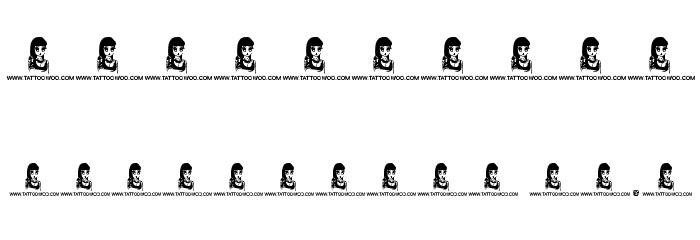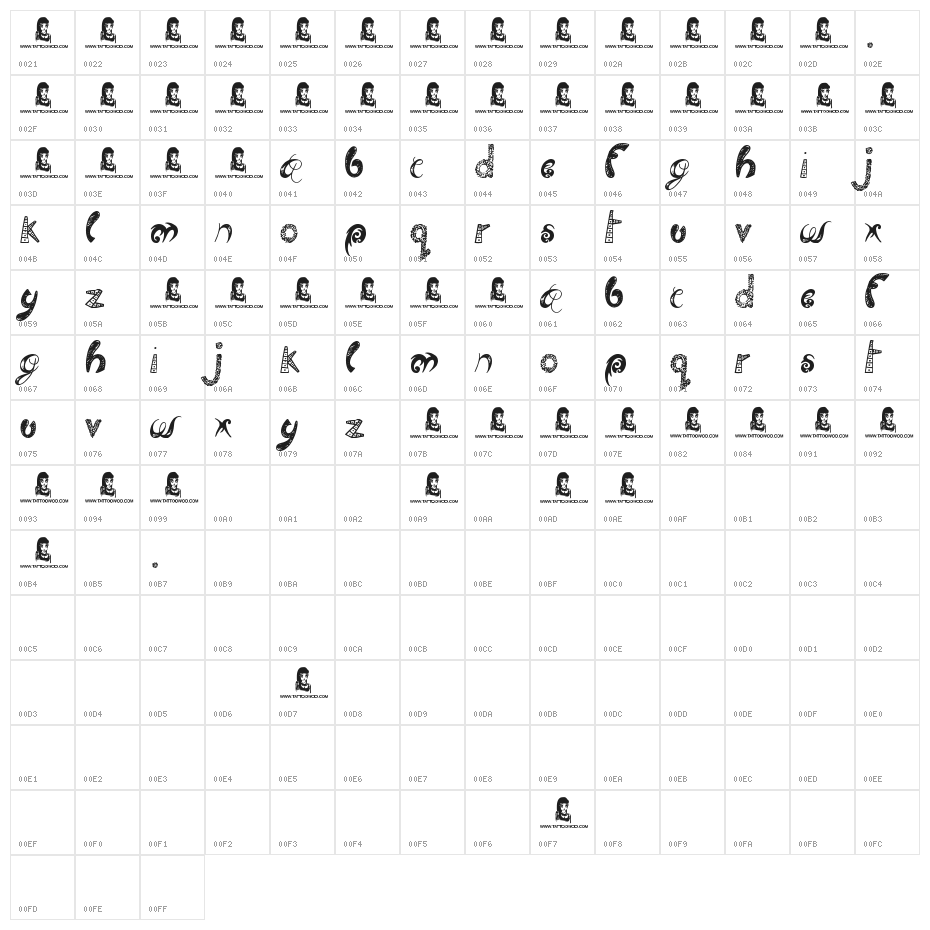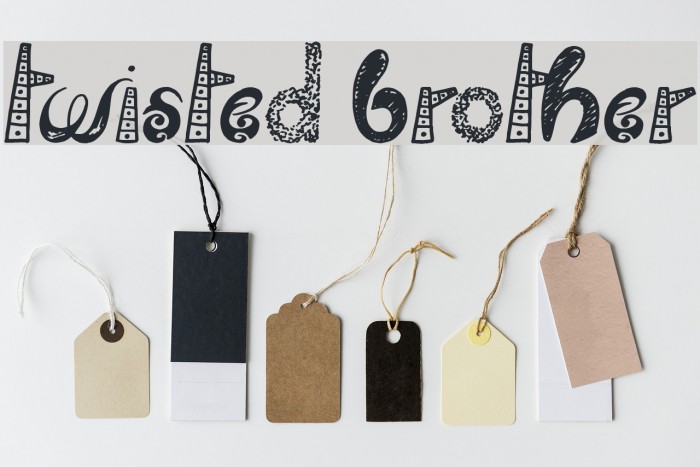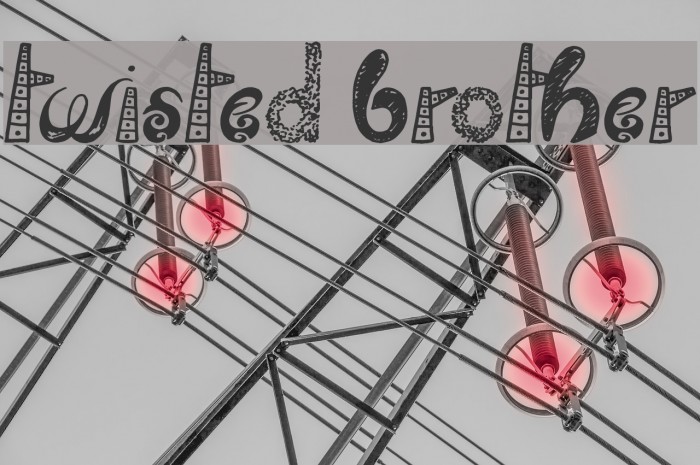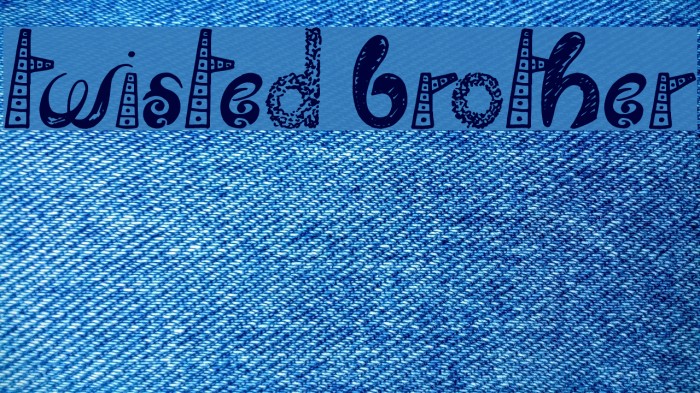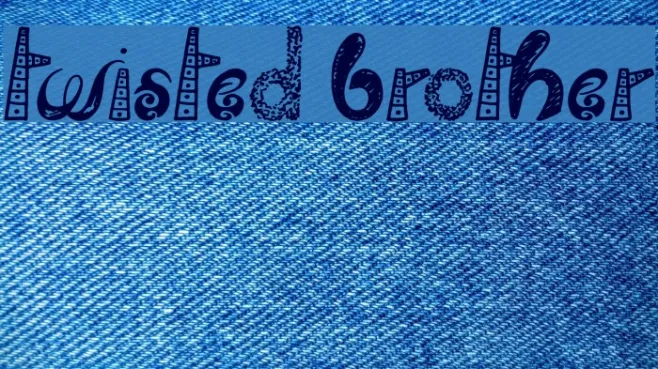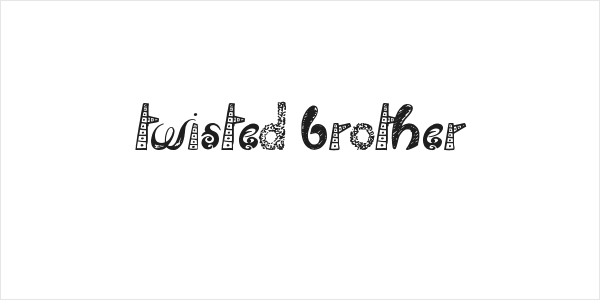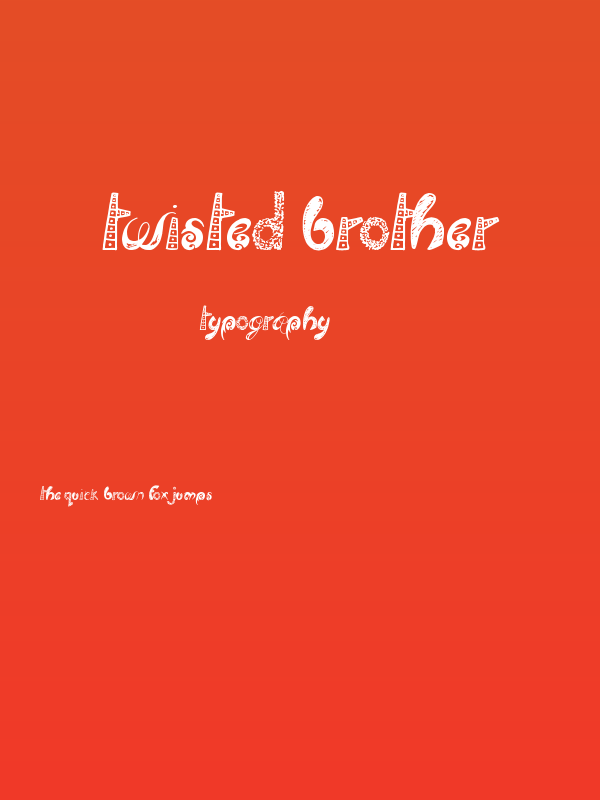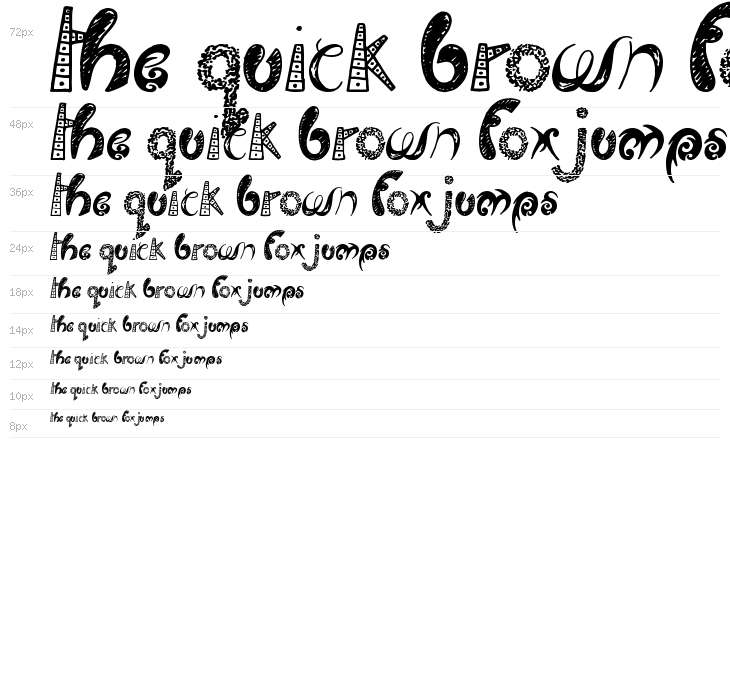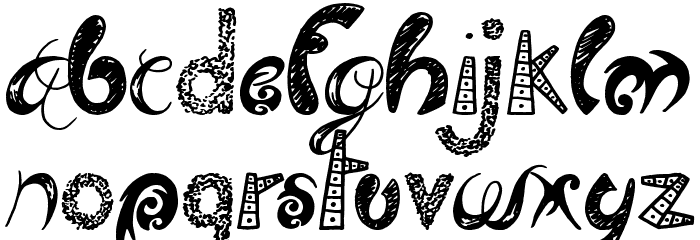
Twisted Brother Font
Twisted Brother Description
This font features a highly decorative and playful style, characterized by its bold and whimsical letterforms. Each character is uniquely designed with intricate patterns and textures, including dots, stripes, and swirls, giving it a lively and dynamic appearance. The font combines elements of both modern and vintage aesthetics, making it stand out with its artistic flair. The uppercase and lowercase letters maintain a consistent theme, with exaggerated curves and loops that add to its quirky charm. This font is ideal for projects that require a touch of creativity and fun.
| Proposed Projects | Ideal for creative projects such as posters, invitations, children's books, and branding that requires a fun and artistic touch. |